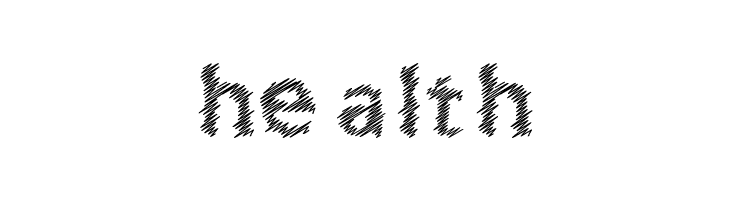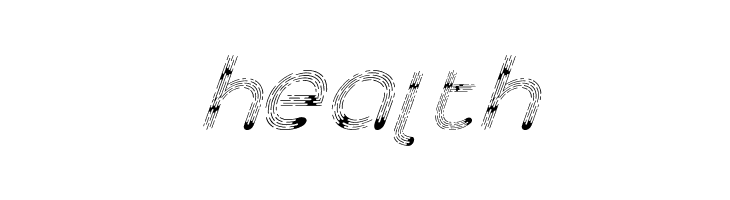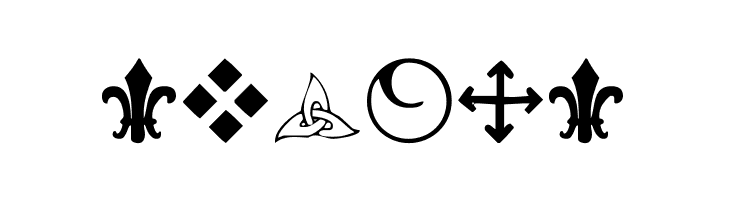
A clean and modern sans-serif font with uniform stroke width and excellent readability.
A bold, sketch-like font with a hand-drawn, artistic style.
A futuristic, italic font with a dynamic, multi-line design.
A classic serif font with semi-bold weight and moderate contrast, ideal for professional use.
A bold serif font with strong strokes and classic design.
A refined serif font with a light weight and elegant design.
A classic serif font with elegant strokes and balanced proportions.
A diverse collection of bold, graphic symbols with cultural and geometric designs.